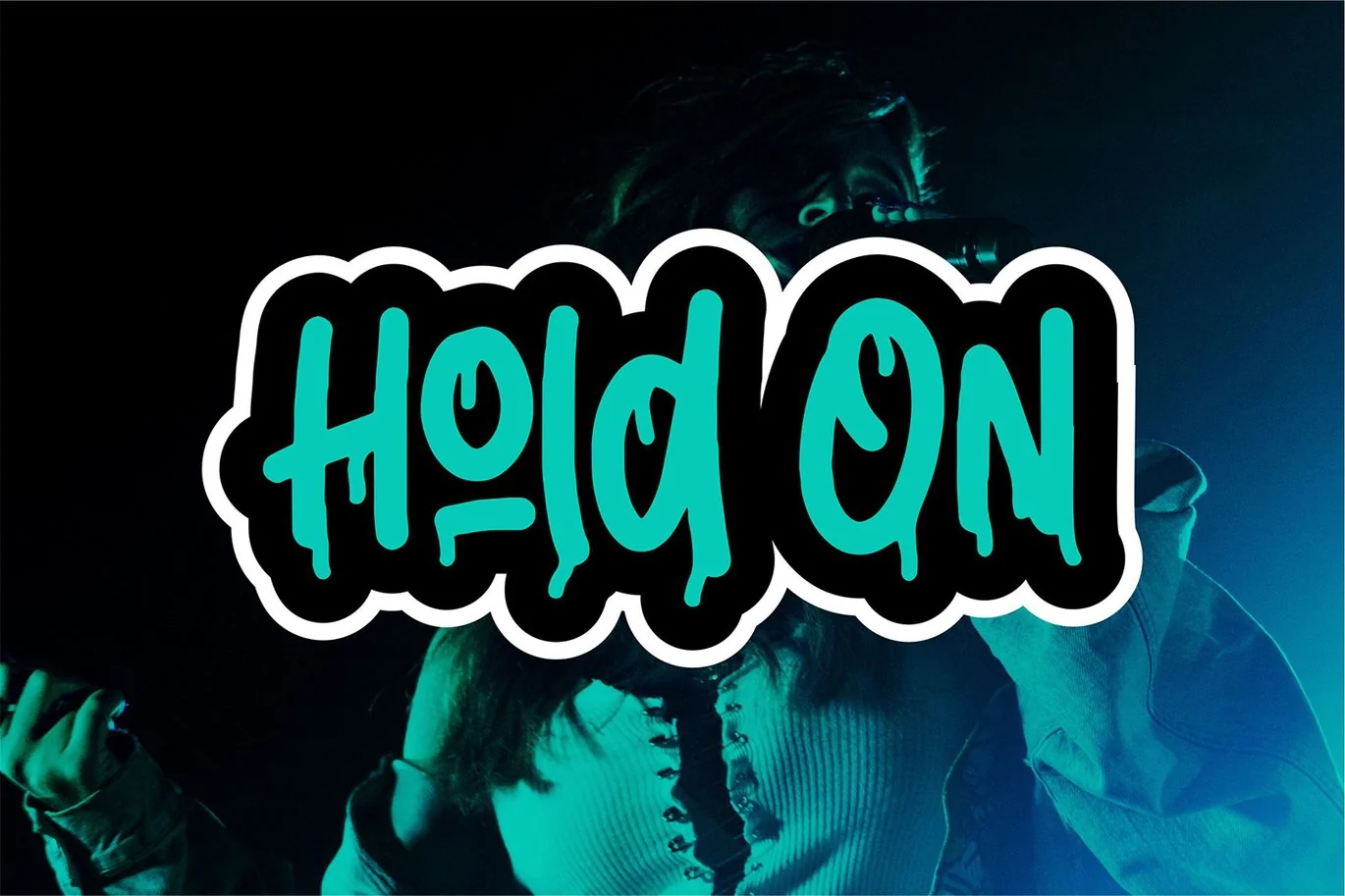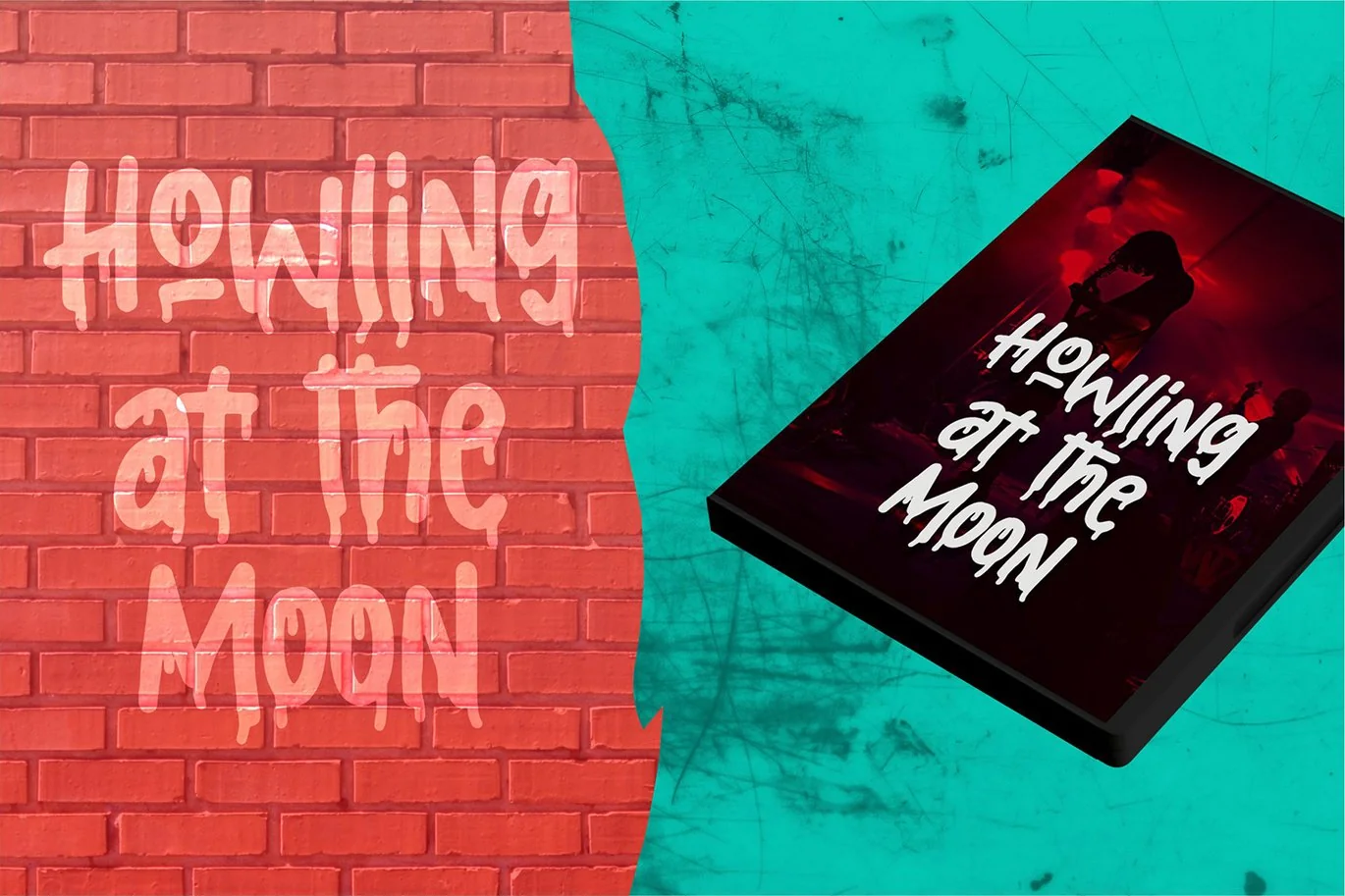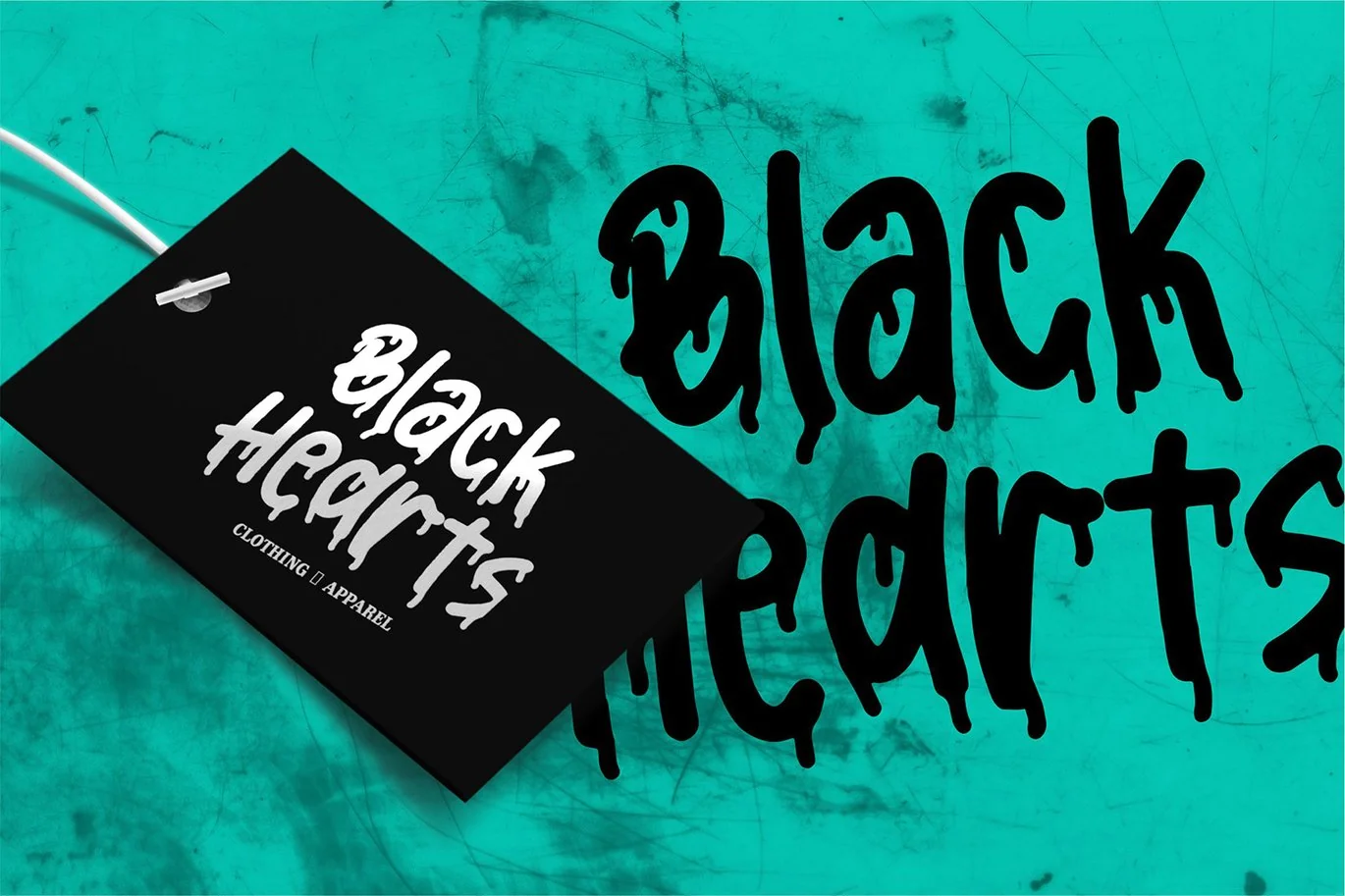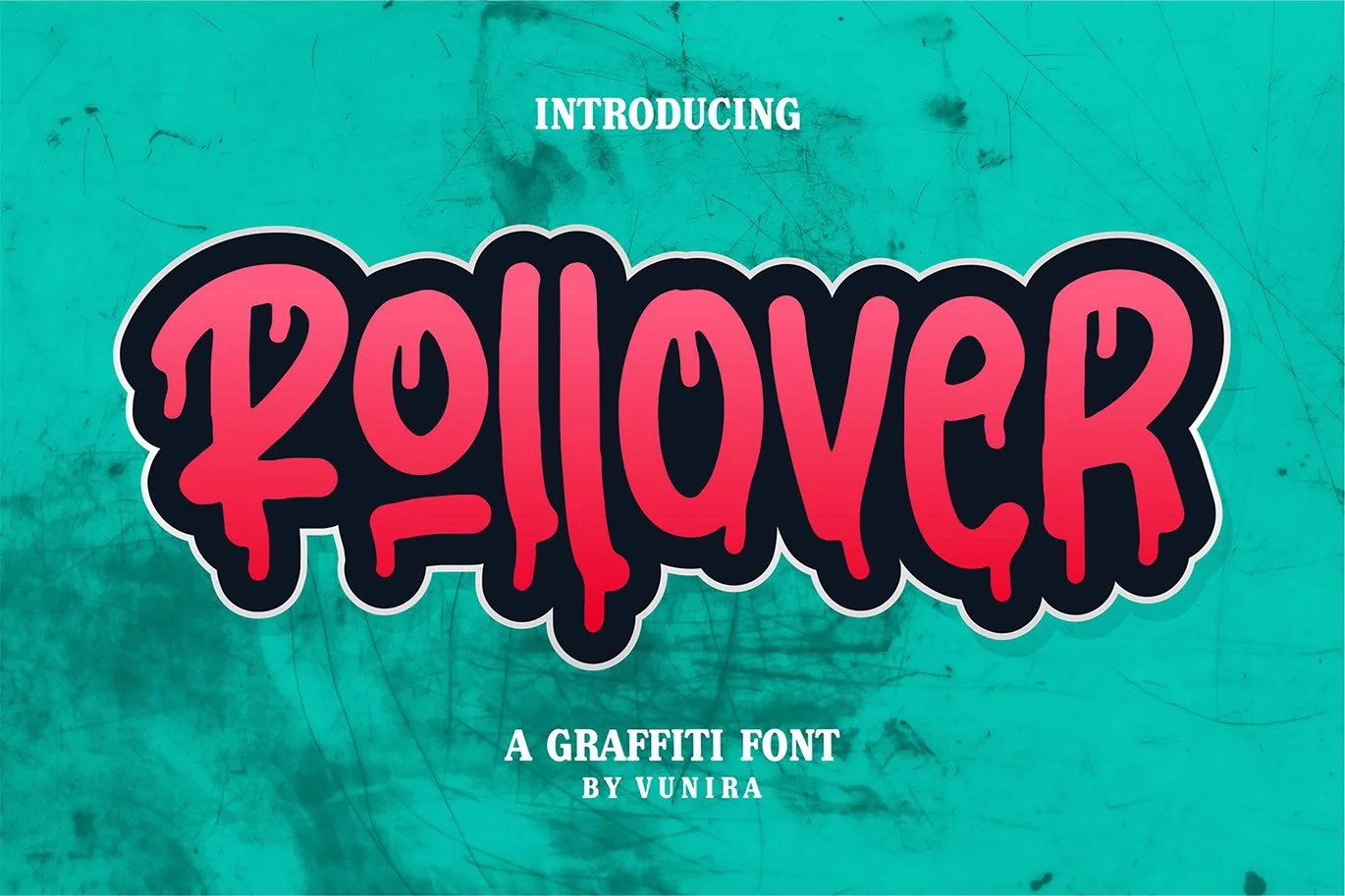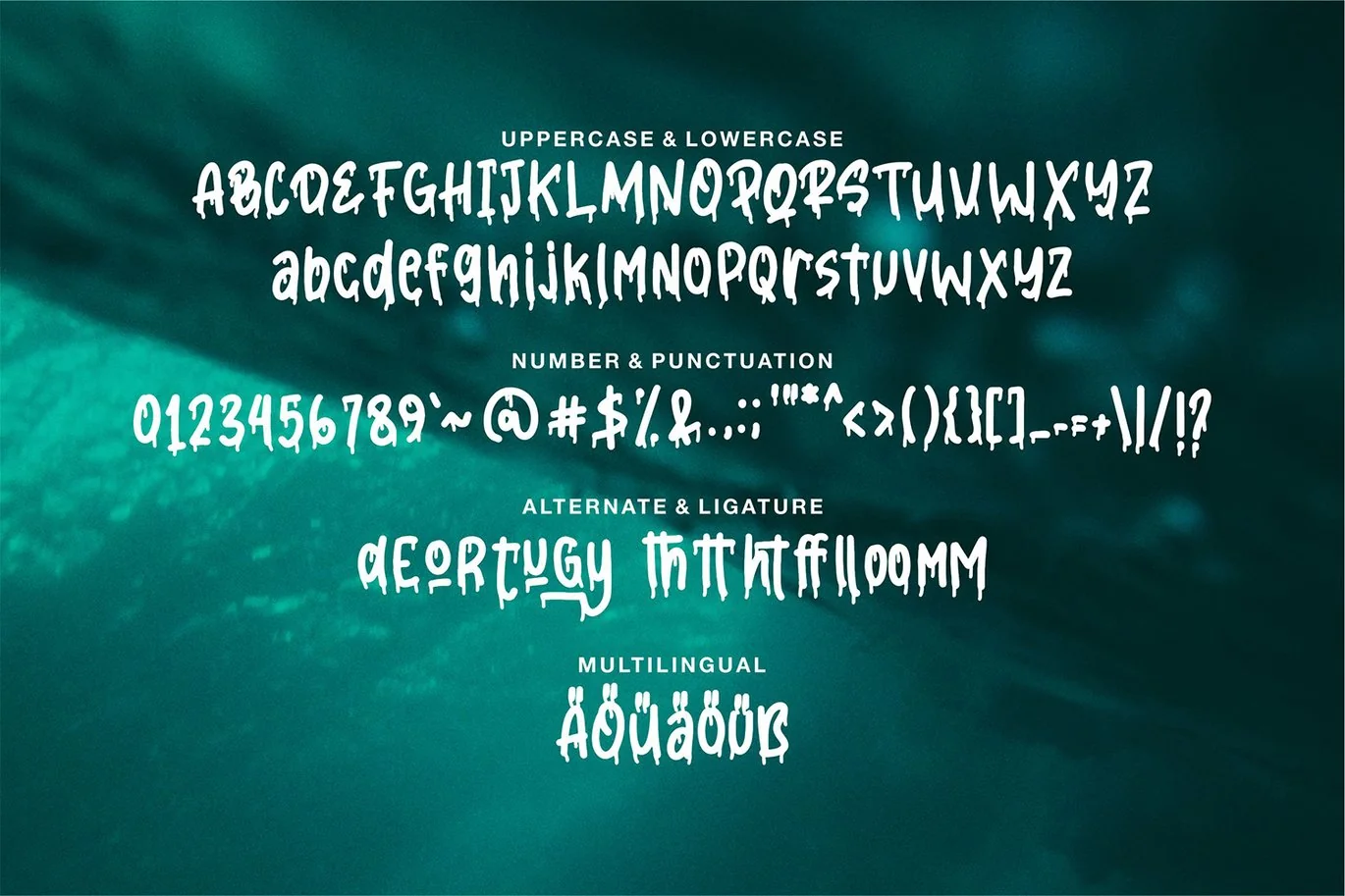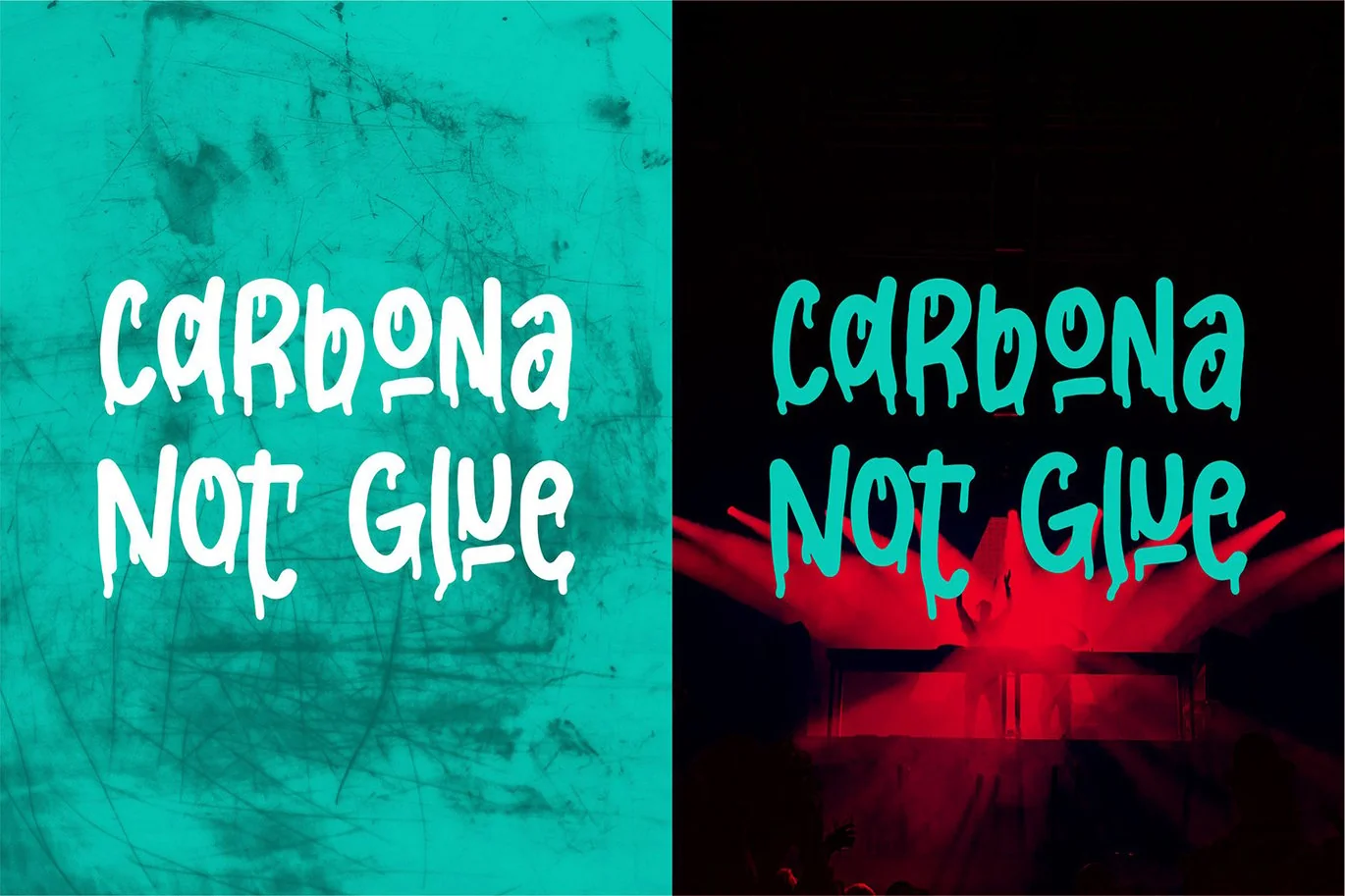
Rollower | A Graffiti Font
Rollower | A Graffiti Font with a calligraphy style, So beautiful on invitation like greeting cards, branding materials, business cards, quotes, posters, and more!